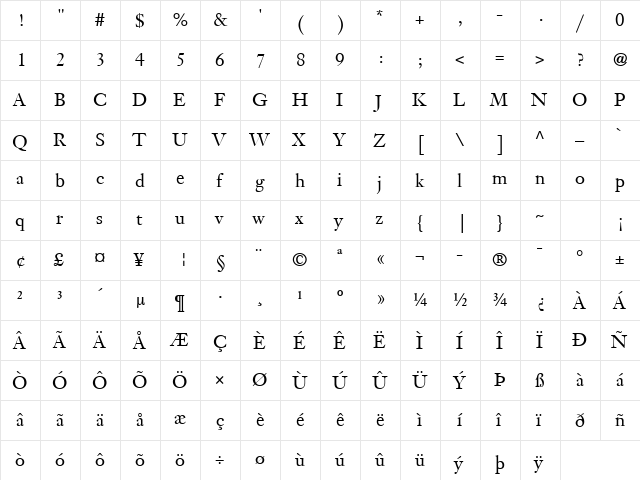
Karim LT Regular
| Foundry | Linotype GmbH |
| Designer | Tim Holloway |
Design Context for Karim LT Typeface
Karim LT offers clean, dependable letterforms without strong stylistic allegiance, making it a practical choice for designers who need flexibility. Its slender proportions lend an understated elegance to any composition.